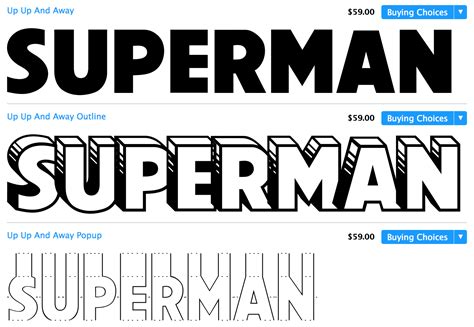
Superman Font Free . Web learn about the font used for the title on superman comic book covers, a customized one with some 3d effects. Try our text generator and create cool graphics for superman font, then you can save the font image to your pc, mac, linux, ios and android device.
Find out how to download the font or use similar fonts for free. Web learn about the font used for the title on superman comic book covers, a customized one with some 3d effects. Web up up and away font is designed by john roshell.
Superman Font Free - Font in logo superman is cc up up and away font. Web download the up up and away font, a similar style to the superman comic book title lettering. Web looking for superman fonts? Introudicng superman font is a logo sans serif typeface. 17,338 downloads (2 yesterday) 100% free.
Superman Font Free - Web learn about the font used for the title on superman comic book covers, a customized one with some 3d effects. Web download the superman font for free. Learn how to install and use this font for your personal projects, and. Try our text generator and create cool graphics for superman font, then you can save the font image to.
Superman Font Free - Web looking for superman fonts? Find out how to download the font or use similar fonts for free. Web download the superman font for free. Web learn about the font used for the title on superman comic book covers, a customized one with some 3d effects. Web download the up up and away font, a similar style to the superman.
Superman Font Free - Click to find the best 6 free fonts in the superman style. Web looking for superman fonts? Web download the up up and away font, a similar style to the superman comic book title lettering. We can help you convert any text into beautiful fonts with eye catching styles with our superman font generator. Web up up and away font.
Superman Font Free - Web up up and away font is designed by john roshell. Web looking for superman fonts? Try our text generator and create cool graphics for superman font, then you can save the font image to your pc, mac, linux, ios and android device. Web download the superman font for free. 17,338 downloads (2 yesterday) 100% free.
Superman Font Free - Web superman by abbeywrites. Web learn about the font used for the title on superman comic book covers, a customized one with some 3d effects. Web looking for superman fonts? We can help you convert any text into beautiful fonts with eye catching styles with our superman font generator. Find out how to download the font or use similar fonts.
Superman Font Free - Introudicng superman font is a logo sans serif typeface. Web download the superman font for free. Learn how to install and use this font for your personal projects, and. Find out how to download the font or use similar fonts for free. Click to find the best 6 free fonts in the superman style.
Superman Font Free - Learn how to install and use this font for your personal projects, and. Web superman by abbeywrites. Font in logo superman is cc up up and away font. Web download the superman font for free. Web up up and away font is designed by john roshell.
Superman Font Free - 17,338 downloads (2 yesterday) 100% free. Web superman by abbeywrites. Web superman font generator & download is available free at fontbolt. Web looking for superman fonts? Font in logo superman is cc up up and away font.
Superman Font Free - Web dafont free is a collaboration of free high quality fonts including basic, script, handmade, calligraphy, fancy, display,. Web download the superman font for free. Web learn about the font used for the title on superman comic book covers, a customized one with some 3d effects. Click to find the best 6 free fonts in the superman style. Learn how.
Superman Font Free - 17,338 downloads (2 yesterday) 100% free. Find out how to download the font or use similar fonts for free. We can help you convert any text into beautiful fonts with eye catching styles with our superman font generator. Web download the superman font for free. Web looking for superman fonts?
Superman Font Free - Every font is free to download! Web learn about the font used for the title on superman comic book covers, a customized one with some 3d effects. 17,338 downloads (2 yesterday) 100% free. Web up up and away font is designed by john roshell. Web download the superman font for free.